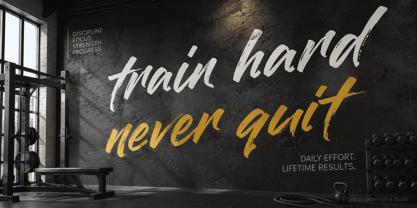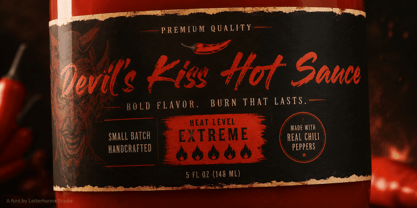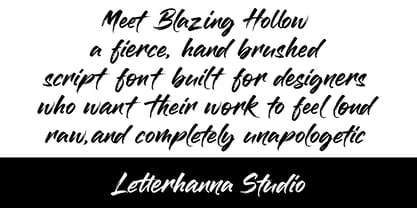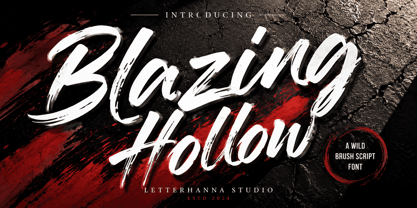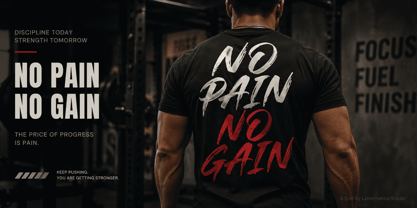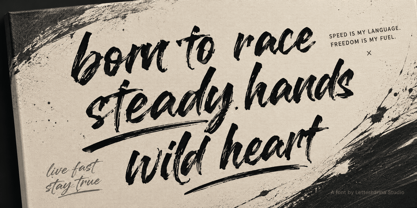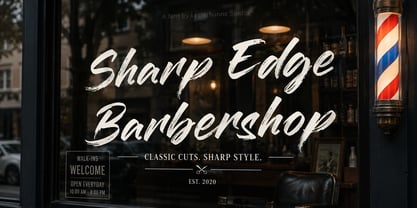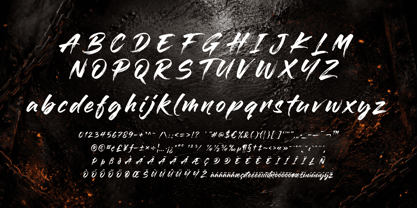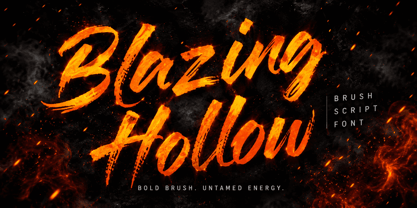
Blazing Hollow
by Letterhanna Studio
The Blazing Hollow Font Family was designed by Rinaldo Hasibuan and published by Letterhanna Studio. Blazing Hollow contains 1 styles. More about this family
Meet Blazing Hollow, a fierce, hand brushed script font built for designers who want their work to feel loud, raw, and completely unapologetic. Each character is shaped with jagged brush textures, sharp diagonal cuts, and bold sweeping tails that make the whole alphabet feel like it's caught mid motion. The uppercase set is dramatic and commanding, while the lowercase letters keep that same rebellious, hand painted energy in a slightly looser, more playful rhythm that still feels powerful.
Think of this font as the visual equivalent of breaking free from anything too neat or predictable. It's inspired by the kind of energy you find in late night garage bands, underground street art, and motorcycles tearing down an open road, unpolished, loud, and proud of it. Nothing about Blazing Hollow asks for permission. It's built to grab attention instantly and hold it, letter after letter.
This makes it an excellent choice for streetwear and apparel branding, sports team logos, gym and fitness graphics, packaging for bold snack or beverage brands, concert posters, tattoo style lettering, and any design that wants to feel rugged and real instead of polished and safe. It looks just as strong on a t-shirt as it does on a large product label.
Designers: Rinaldo Hasibuan
Foundry: Letterhanna Studio